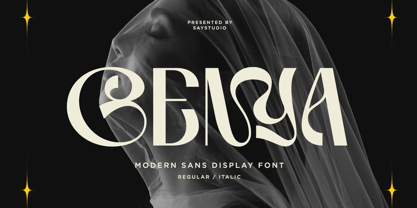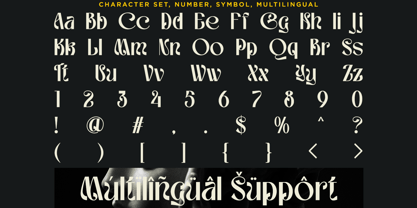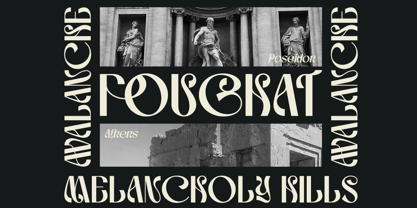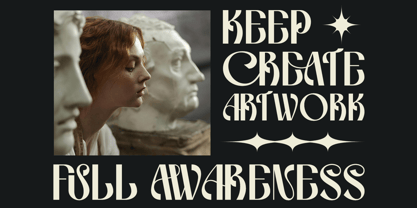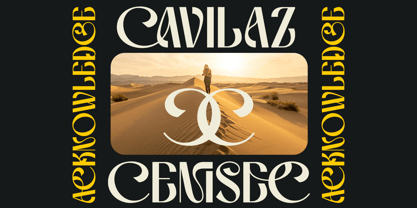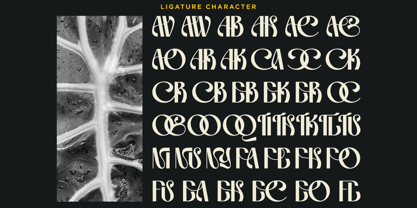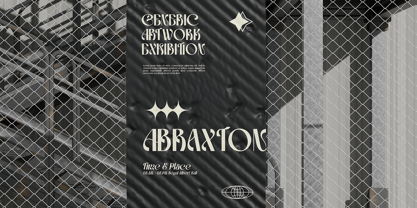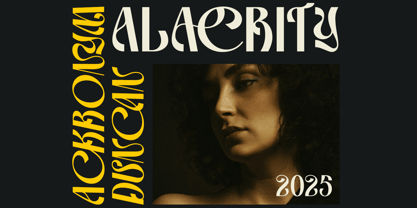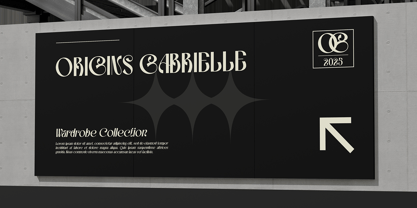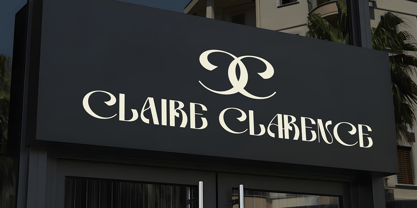
Genya
La familia tipográfica Genya fue diseñada por Mussyayin y publicada por Say Studio. Genya contiene 2 estilos y opciones de paquete familiar. Más información sobre esta familia
Genya is a bold modern display sans font that fuses contemporary minimalism with artistic ligature styling. Featuring striking geometric letterforms, expressive alternates, and unique decorative details, Genya creates an unforgettable visual identity that stands out in branding, editorial, and creative design. Its bold personality and clean construction make it ideal for projects that demand both originality and premium aesthetics.
Designed for fashion brands, creative studios, luxury campaigns, editorial layouts, posters, album covers, architecture, packaging, advertising, lifestyle magazines, and modern visual identities, Cenya offers outstanding versatility. With multilingual support, stylistic alternates, complete punctuation, and numerals, it provides designers with everything needed to produce professional typography across print and digital platforms.
Whether you're creating logos, posters, websites, social media campaigns, product packaging, magazine covers, creative portfolios, or premium brand identities, Cenya delivers an eye-catching and sophisticated look. Its modern display style balances artistic expression with excellent readability, making it a perfect choice for brands seeking a distinctive, fashionable, and contemporary presence.
• Regular and Italic
• Stylistic Ligature
• Uppercase and Lowercase
• Number, Symbol, and Punctuation
• Multilingual Support